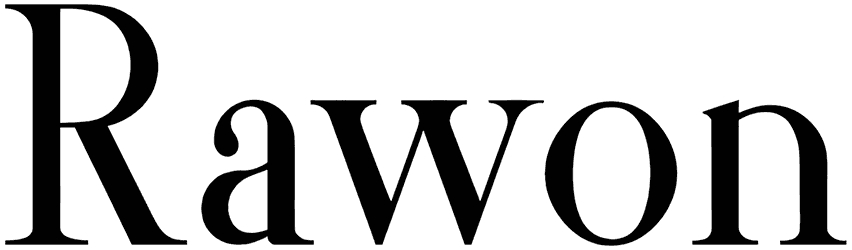
Rawon Font
Since the character’s structure of Rawon is in a moderate position, neither too classic nor too modern, this serif font can be matched with a wide set of graphic content, ranging from business cards, diplomas, announcements, and logos, to presentations. Due to its magical style, it shares a sense of formality, validity, confidence, and trustworthiness with the audience.